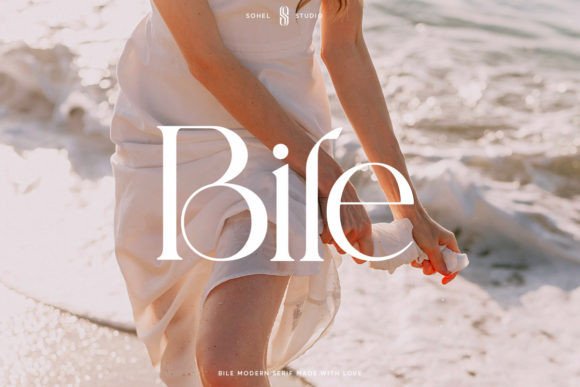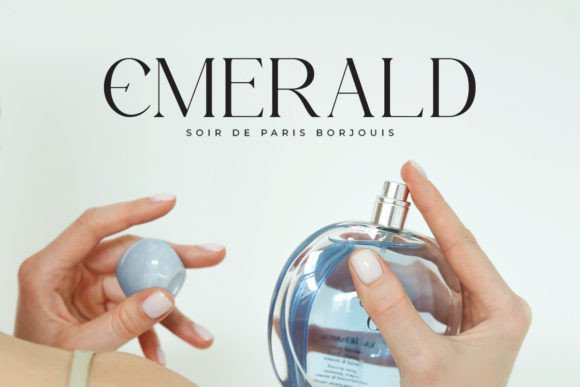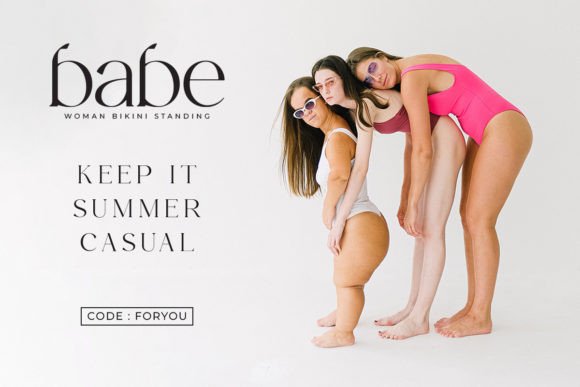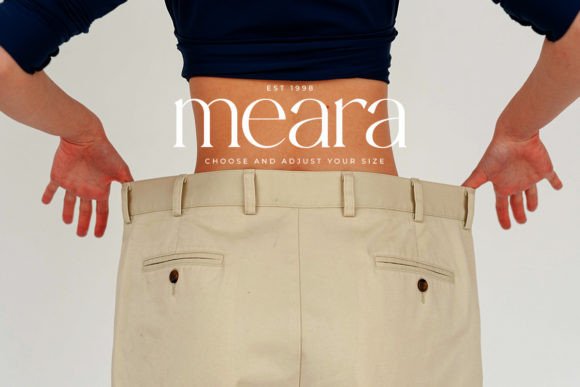
Bile Font: Elegant Serif Typography for Modern Logo Design
About the Bile Font
The wait is over! The incredible Bile Font is now available for your design toolkit. Bile is a classy serif typeface with unique characters and perfect kerning. This typeface is perfect for an elegant & luxurious logo, classy editorial design, women’s magazine, fashion brand, cosmetic brand, fashion promotion, modern advertising design, invitation card, art quote, home decoration, book/cover titles, special events, and much more. This elegant font needs to be in your collection and is perfect for your next luxury design project!
Bile’s elegant serif forms excel in headlines, short text blocks, and logos where its refined details shine. It’s ideal for branding projects emphasizing luxury, sophistication, and timeless appeal—think high-end fashion, cosmetics, or jewelry. However, its delicate nature makes it unsuitable for body text or UI elements requiring high readability.
Pairing Bile with a clean sans-serif like Montserrat or a geometric sans-serif like Futura creates a balanced contrast, modernizing its classic feel. For a more luxurious effect, consider pairing it with a script font like Great Vibes for invitations or a subtly textured serif like Playfair Display for a sophisticated book cover.
Bile projects a sophisticated and timeless personality. Its refined elegance lends itself to brands aiming for a premium image and a sense of enduring quality.
Bile Font Usage Examples
Bile Font Example